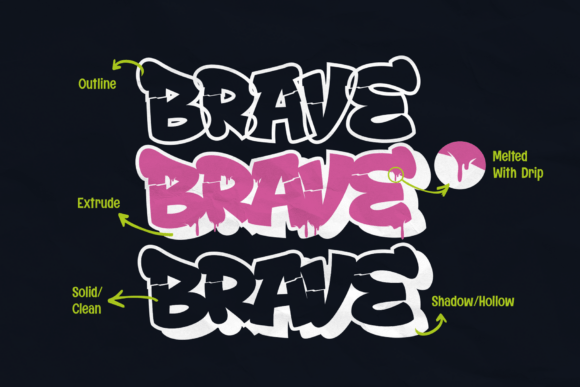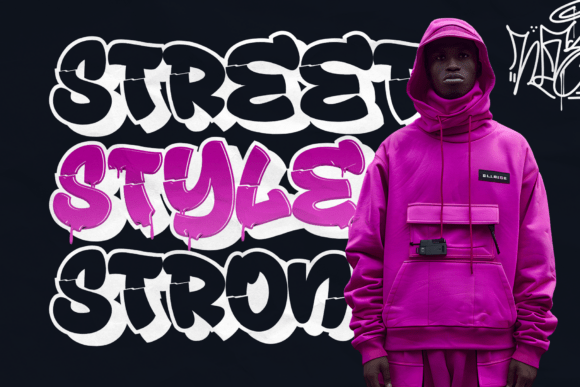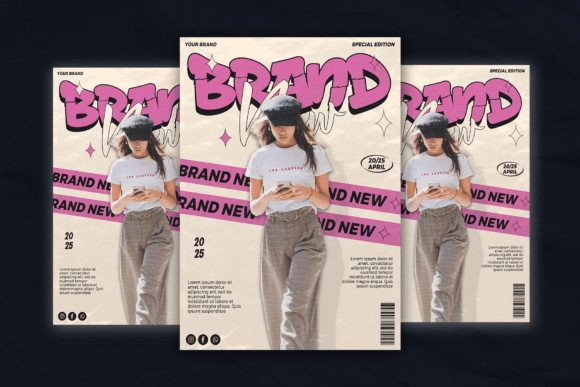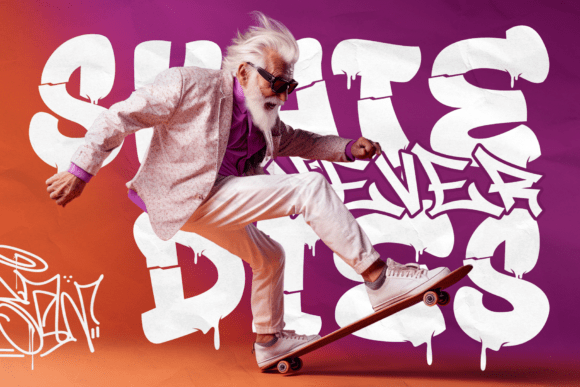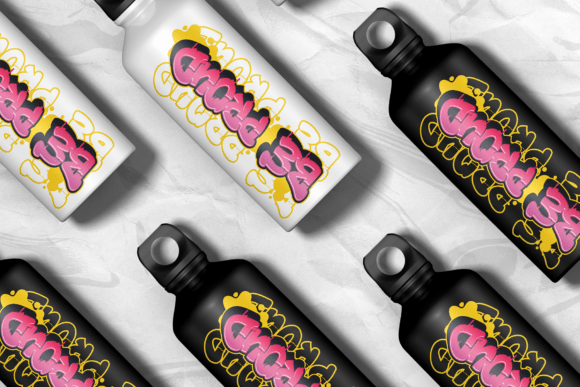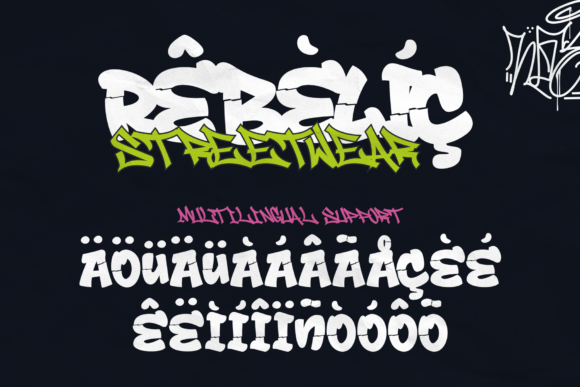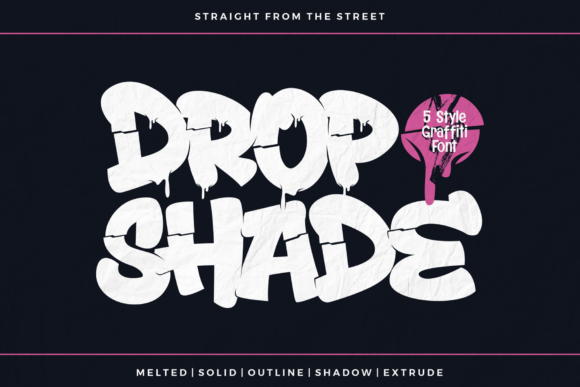
Unleash Your Creativity with Dropshade Regular Font: The Ultimate Graffiti-Inspired Typeface
Step into the vibrant world of 3D urban artistry with Dropshade Regular Font, a one-of-a-kind graffiti-inspired typeface that embodies the rebellious spirit of street culture. This unique font is designed to add a touch of charisma to your designs, making it perfect for crafters and designers looking to create bold and eye-catching compositions. With its dripping strokes and layered depth details, Dropshade effortlessly transforms your vision into a piece of art that commands attention.
The Essence of Street Culture: A Graffiti-Inspired Font
Dropshade Regular Font is more than just a typeface; it’s a portal to the world of street culture and beyond. Its graffiti-inspired design subtly echoes the attitude and energy of urban artistry, making it an ideal choice for designers and crafters who want to add a touch of edginess to their work. Whether you’re creating streetwear logos, hip-hop posters, or skateboard graphics, Dropshade is the perfect font to invoke attitude and make your designs stand out.
One of the most compelling aspects of Dropshade Regular Font is its versatility. Equally effective in both print and digital incarnations, this font empowers you to play with the boundaries of design and achieve extraordinary compositions. With Dropshade, you can:
- Enhance streetwear logos with a bold and edgy touch
- Invoke attitude in hip-hop posters and flyers
- Rev up skateboard graphics with a vibrant and dynamic look
- Create stunning prints and posters that command attention
- Develop unique digital content that stands out from the crowd
Distinctive Energy and Vivacity
Dropshade Regular Font is designed to ignite your projects with distinctive energy, vivacity, and a genuine graffiti vibe. Its unique design elements, including dripping strokes and layered depth details, add a touch of realism and texture to your designs. This font is perfect for designers and crafters who want to create bold and eye-catching compositions that reflect the attitude and energy of street culture.
Key Features of Dropshade Regular Font
- Unique graffiti-inspired design
- Dripping strokes and layered depth details
- Equally effective in print and digital incarnations
- Perfect for streetwear logos, hip-hop posters, and skateboard graphics
- Endless design possibilities
Tips for Using Dropshade Regular Font
To get the most out of Dropshade Regular Font, here are some tips to keep in mind:
- Experiment with different colors and textures to add depth and dimension to your designs
- Use Dropshade in combination with other fonts to create unique and eye-catching compositions
- Play with the font’s dripping strokes and layered depth details to add a touch of realism to your designs
- Don’t be afraid to push the boundaries of design and try new things
Dropshade Regular Font is a one-of-a-kind graffiti-inspired typeface that embodies the rebellious spirit of street culture. With its unique design elements, versatility, and endless design possibilities, this font is perfect for designers and crafters looking to add a touch of edginess to their work. Whether you’re creating streetwear logos, hip-hop posters, or skateboard graphics, Dropshade is the perfect font to invoke attitude and make your designs stand out. So why wait? Unleash your creativity with Dropshade Regular Font and take your designs to the next level.